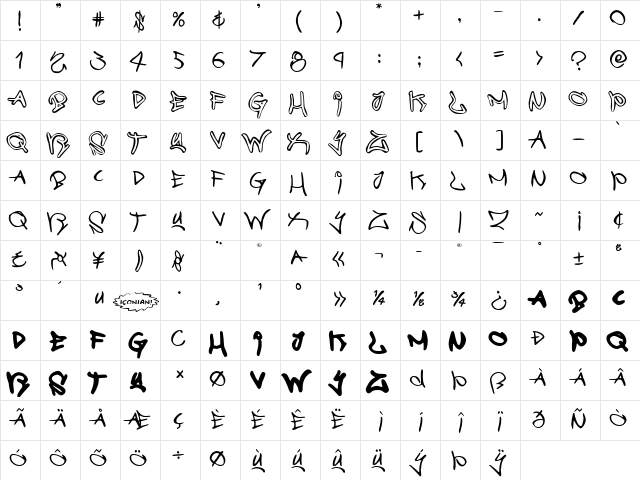
Graffiti Street Balloon Regular
Design Context for Graffiti Street Balloon Typeface
Graffiti Street Balloon is a composed and adaptable typeface that performs quietly and consistently across a wide range of design contexts.